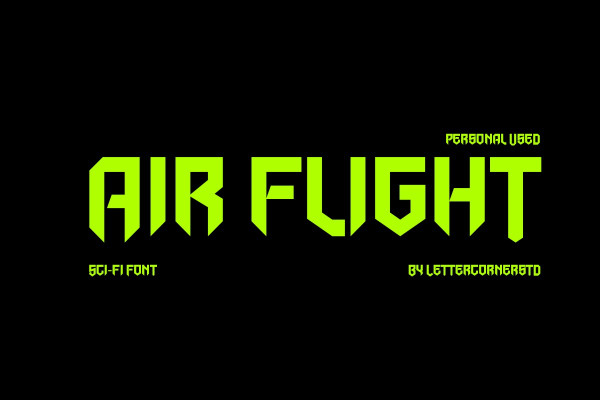
Air Flight Font
Air Flight Font, This bundle features strong, confident and powerful typefaces designed to work great with sports logos, club branding, apparel applications, labels and more.